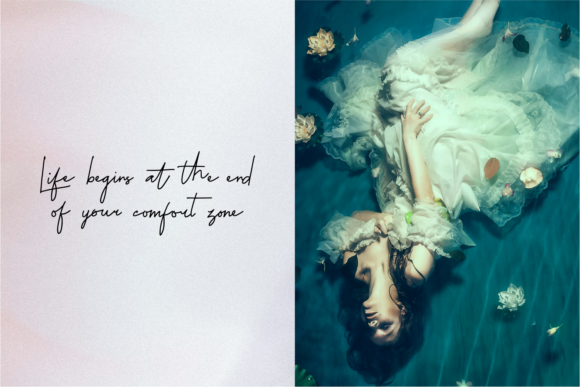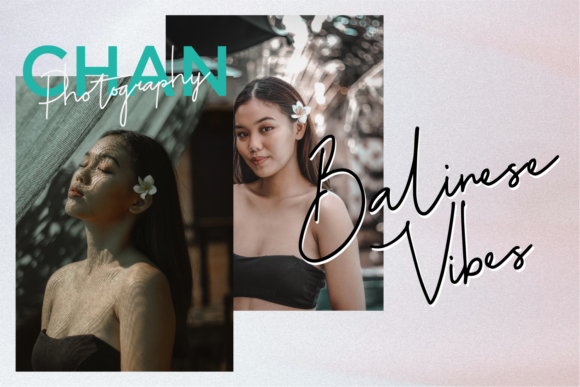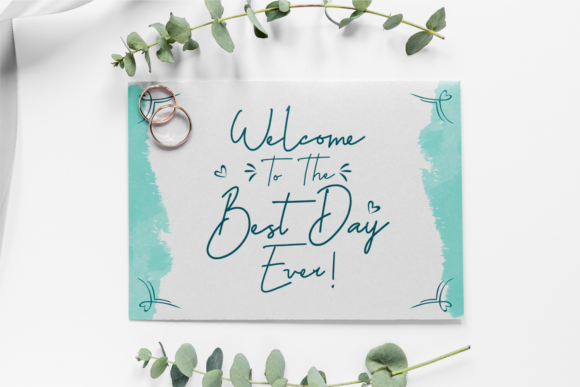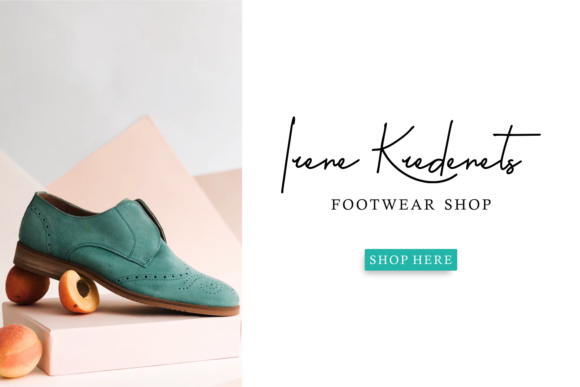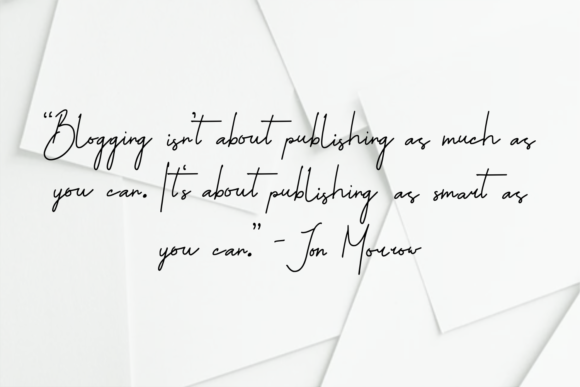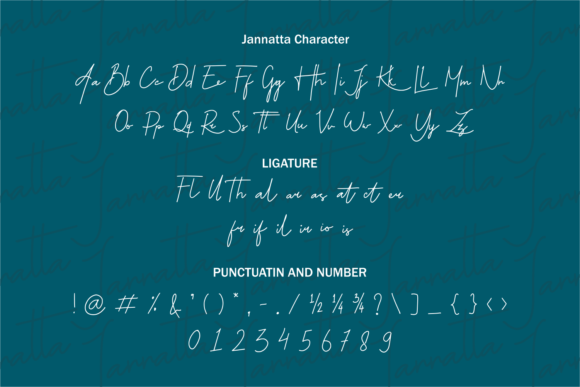
Introduction to Jannatta Font
Have you ever stared at a blank page, pen in hand, waiting for that perfect word to flow onto the paper? For designers, this moment is a constant quest for creative expression. It’s in these moments that the right font can make all the difference.
Enter the Jannatta Font, a stunning handwritten font that embodies the essence of elegance and sophistication. With its thin, flowing lines, this font is perfect for designers looking to add a touch of high quality to their projects. Whether it’s a branding project, magazine layout, or social media graphic, the Jannatta Font is an excellent design resource that can elevate any creative project.
What sets the Jannatta Font apart is its versatility and ease of use. With PUA encoding, designers can access all the glyphs and swashes with ease, making it a valuable tool for any design project. And the best part? It’s available for free download, making it an excellent choice for designers looking to add a professional touch to their designs without breaking the bank.
Key Features of Jannatta Font
- High-quality font suitable for creative projects and design resources, offering a unique and elegant touch.
- Designed with a clear and legible font style, suitable for use in a wide range of applications, from print to digital media.
Honest Review: Jannatta Font
I recently had the chance to work with the Jannatta Font on a creative project, and I must say it’s been a game-changer. As a design resource, it’s offered so much versatility and style that I’ve been able to achieve a truly unique look.
What works well is the high quality of the font itself. It’s crisp, clear, and offers a beautiful aesthetic that I just can’t get enough of. I particularly love the transparent background, which makes it super easy to integrate into any design.
Some of the key features of the Jannatta Font that I’ve enjoyed include:
- ✨ Unique and creative style that sets my designs apart
- ✨ High-resolution graphics that look great on any screen
That being said, there are a few limitations to keep in mind. For example, the font can be a bit tricky to navigate at first, and some of the more complex designs can be a bit finicky. ⚠️
Overall, I’m really impressed with the Jannatta Font. It’s been a fantastic addition to my design toolkit, and I’m excited to see what other creative projects I can tackle with it. If you’re looking for a high-quality font to elevate your designs, I’d definitely recommend giving it a try.
To get the most out of Jannatta Font, use it in combination with other design resources for a unique and eye-catching look. Experiment with different font sizes and styles to add visual interest to your design. Jannatta Font is a great resource for designers looking for a high-quality, creative solution.
Jannatta Font is commonly used in a variety of design projects, including logos, graphics, and digital marketing materials. Its transparent background makes it ideal for designing graphics that require a subtle, elegant look. With its high-quality design and free download option, Jannatta Font is a valuable resource for any designer.